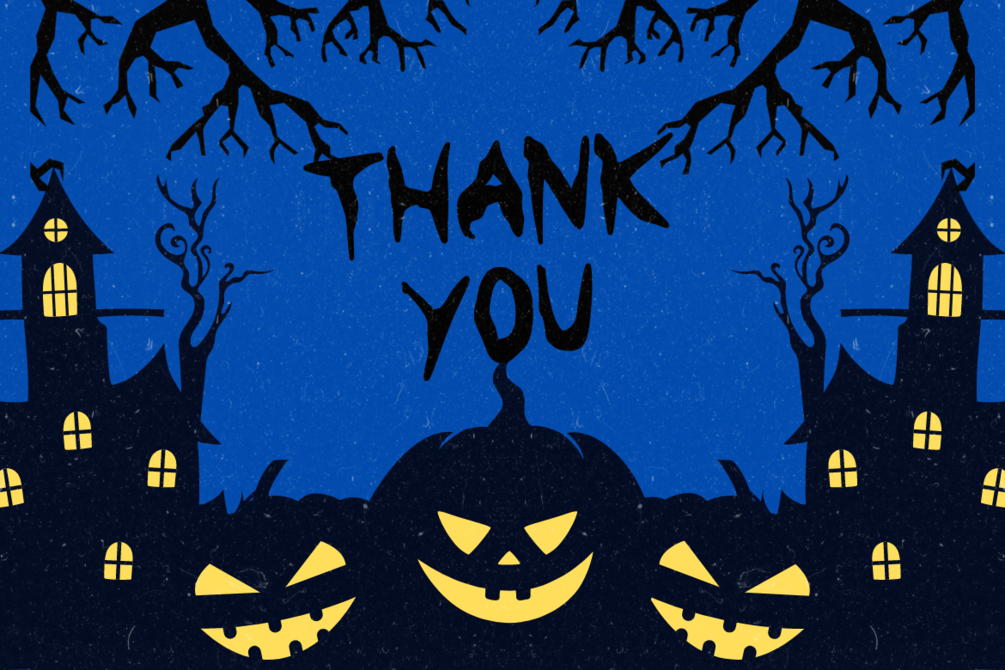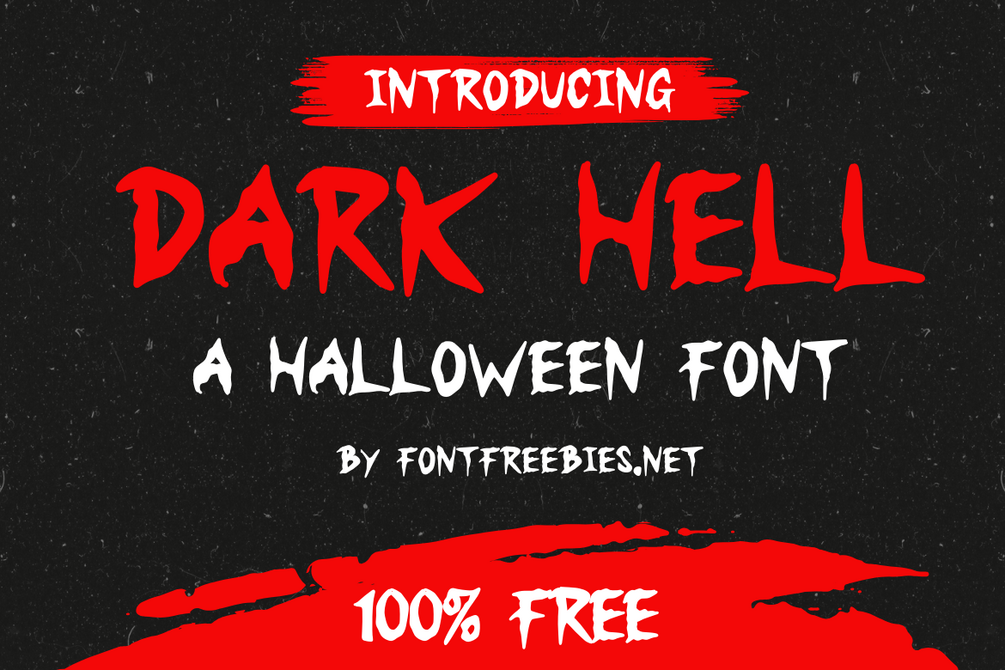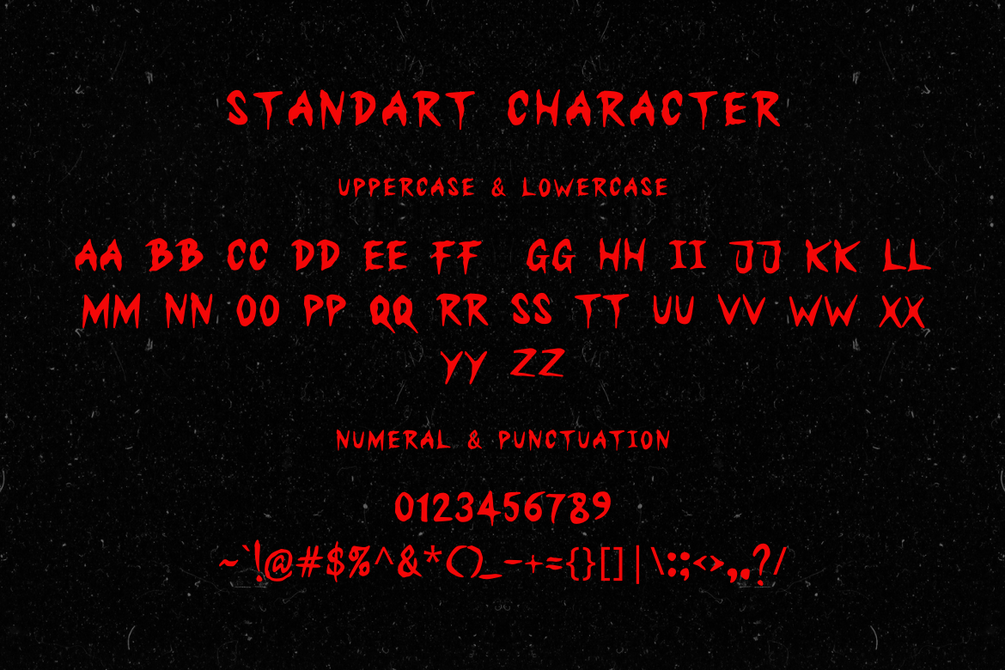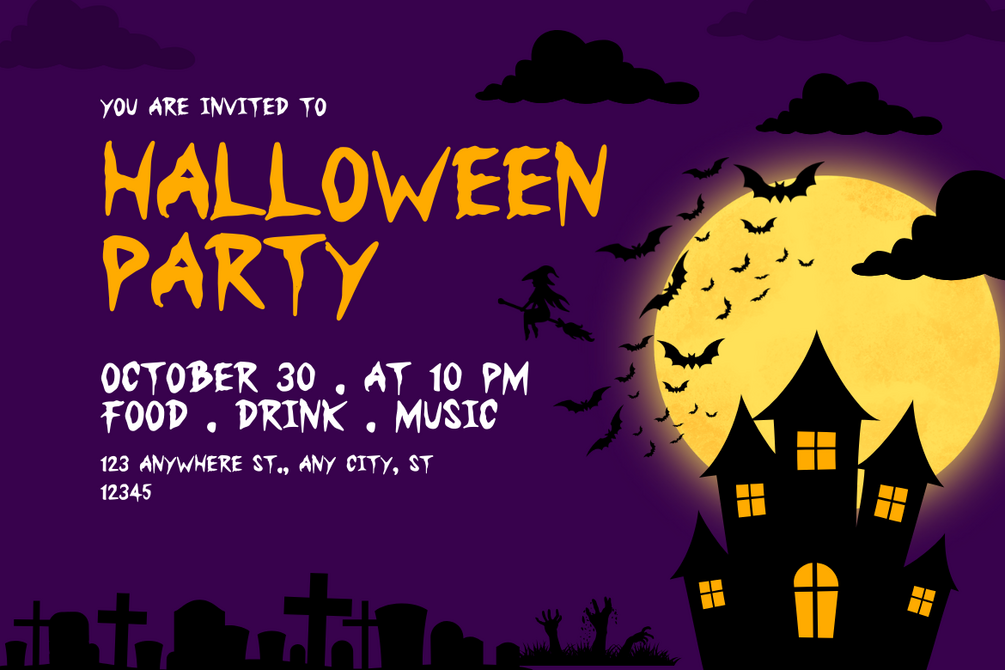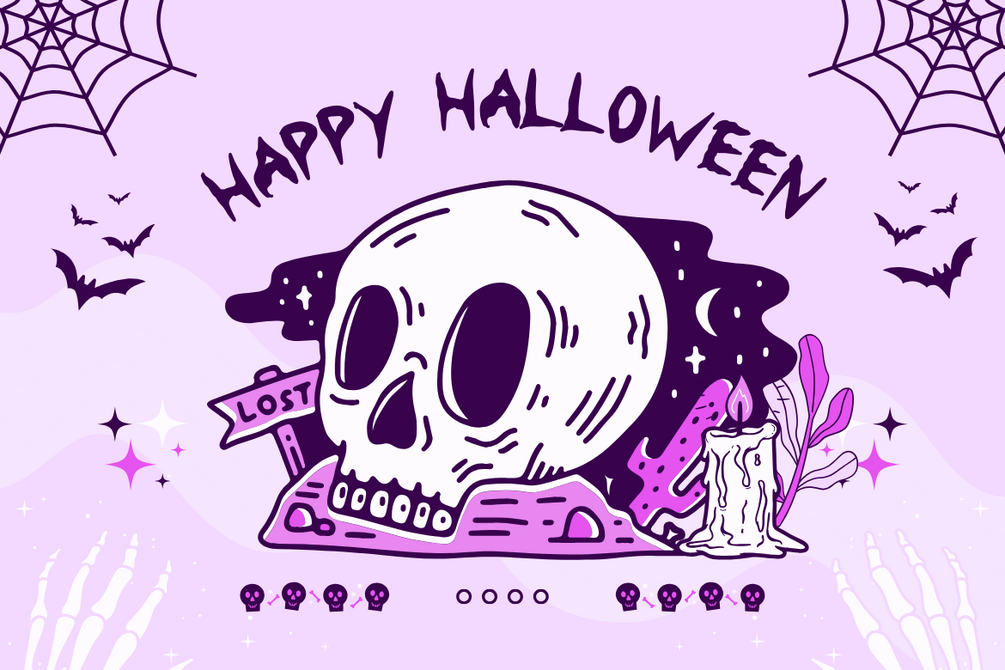
Dark Hell - A Halloween Font
Dark Hell is a bold and ominous Halloween font designed to add a sense of fear and intensity to your designs. Perfect for event flyers, posters, and party invitations, Dark Hell’s sharp, jagged letterforms make it ideal for Halloween-themed projects.